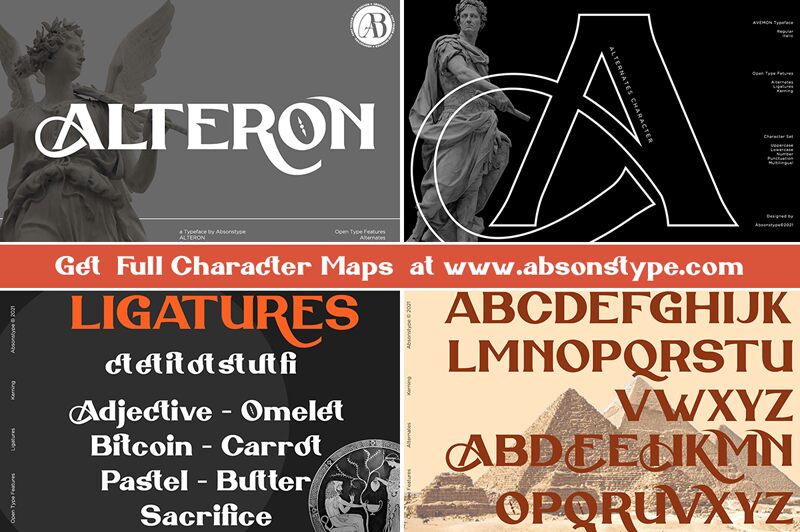
Alteron Italic, a distinguished member of the Alteron font family from Absonstype Studio, exudes a bold, semi-expanded presence that effortlessly elevates any creative endeavor. With its classic display serif style, it merges the elegance of traditional typefaces with the modern flair of contemporary design. The uppercase and lowercase characters are beautifully balanced, providing a visual harmony that is both pleasing to the eye and commanding in its presentation.
The versatility of Alteron Italic shines through its extensive range of alternates and ligatures, allowing for bespoke customization that can adapt to a myriad of design projects-whether it's crafting striking headlines with impact or designing logos that demand attention. Ideal for posters, packaging, T-shirt designs, and more, this font carries an inherent adaptability that seamlessly aligns with both artistic aspirations and commercial needs. Make your next project stand out with the distinctive allure of Alteron Italic.